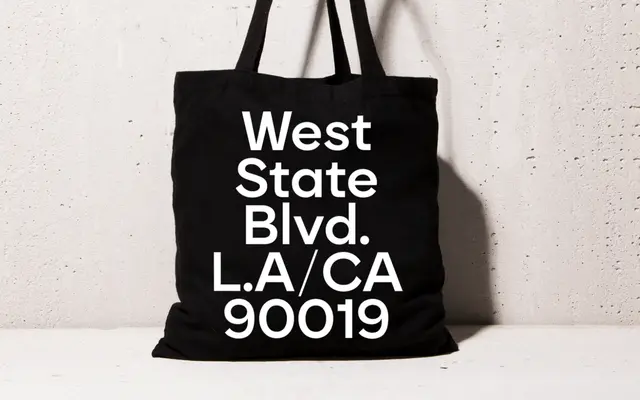
A rounded sans-serif in five weights designed around warmth, balanced proportions and a deliberately approachable character.
Conforto is built on rounded terminals and even proportions, giving each weight a soft, welcoming quality that works across a range of applications. The family runs from Thin to Bold, with heavier weights amplifying the friendly tone rather than hardening it. Glyph coverage extends across Latin Extended and Cyrillic characters, broadening its usability beyond Western European markets.
A sans-serif with explicitly rounded features and friendly proportions, placing it firmly in the rounded sans subcategory rather than a geometric or humanist tradition.